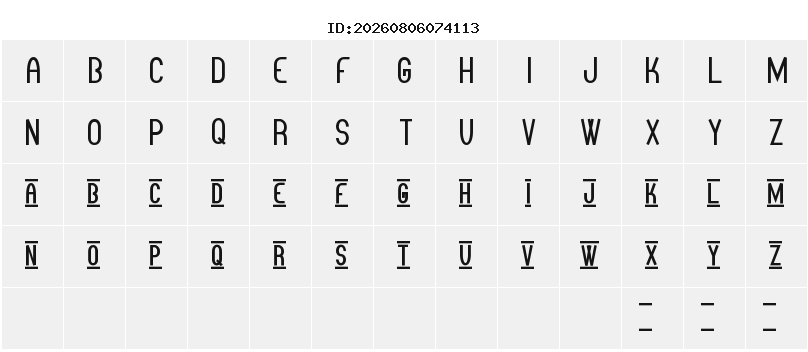
• Font Name: Otra Mas stf
About Otra Mas stf.ttf
Otra Mas stf.ttf is a modern, elegant sans-serif font designed for ultimate readability and visual harmony. Perfect for branding, headlines, web design, and print materials.